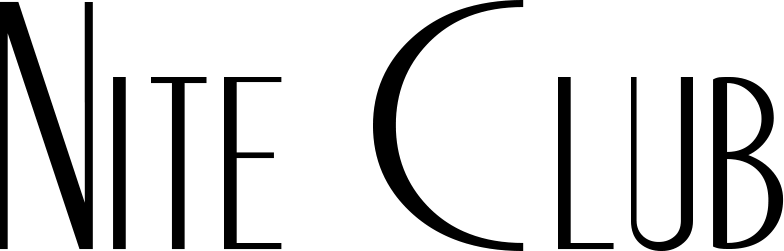
Nite Club Font
To highlight the modern touch of your design, let us introduce you to Nite Club, a stylish Art Deco font with a distinguishable outline. It easily gives your business cards or branding designs the sense of commitment you wish for them to inspire.
Interestingly, this American diner font makes up for its lack of lowercase with a second set of capitals, only that they’re fader and smaller. Turns out, this simple contrast makes all the difference when it comes to sticking out.